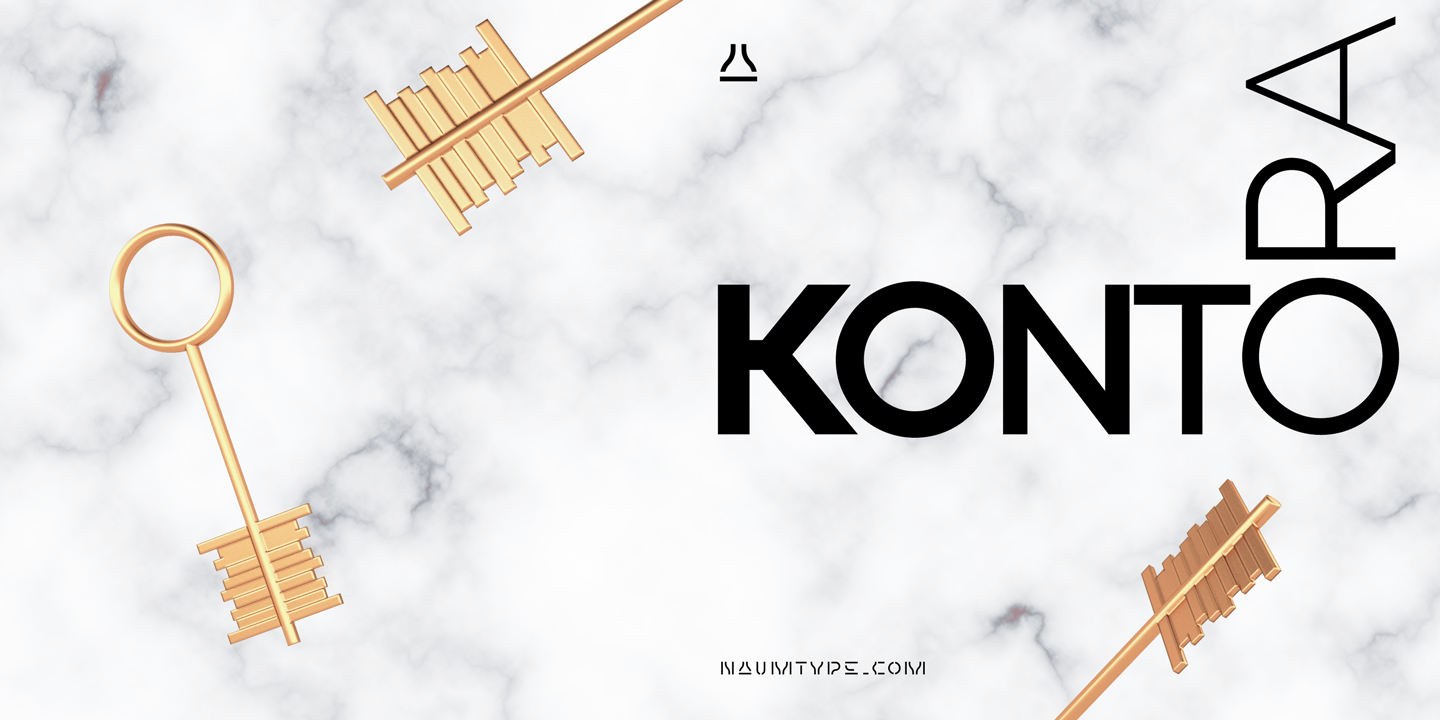
Kontora Font is ideal for corporate office branding, professional business communications, administrative documentation, modern workplace design, executive presentation materials, institutional identity systems, commercial real estate marketing, professional service providers, business consulting firms, and contemporary office applications. This professional typeface creates authentic workplace atmosphere in both corporate print and digital business platforms.
What makes Kontora Font exciting is its perfect embodiment of modern office professionalism with contemporary workplace sophistication and business efficiency. The font features clean letterforms with corporate proportions and professional character details that evoke executive boardrooms, modern offices, and business excellence. Its professional design establishes an atmosphere of workplace competence and corporate reliability that resonates with business audiences seeking authentic professional credibility and commercial success.
Kontora Font family includes professional variations: Light, Regular, Medium, Bold, and Executive versions, each with corporate alternates and business character sets. Each variant maintains the font's professional integrity while providing designers with business-focused options for creating corporate typography systems and workplace communication materials.
This exceptional professional typeface brings authentic corporate credibility to projects requiring business presentation. Whether you're designing office branding, corporate communications, or professional marketing materials, Kontora Font Free Download delivers outstanding professionalism and workplace sophistication. The font's corporate proportions and business details ensure memorable professional connection across various office applications.
Corporate businesses and professional service firms recognize how Kontora Font perfectly captures the essence of modern workplace culture and business professionalism. Its corporate foundation combined with contemporary efficiency makes it essential for business and professional design projects. Download today and professionalize your designs with this exceptionally reliable corporate typography.